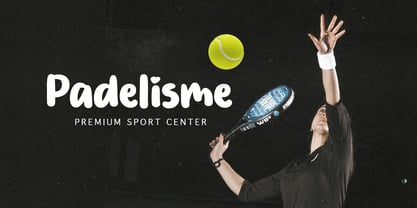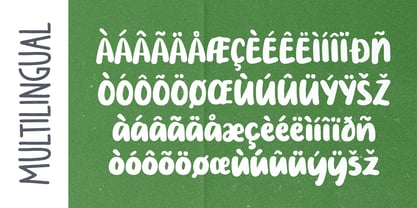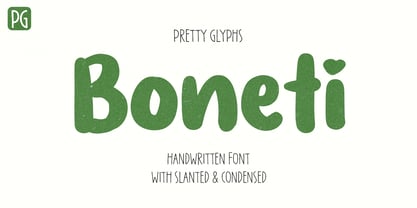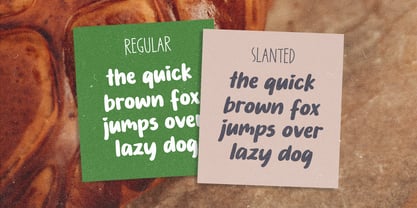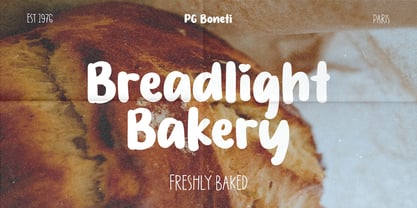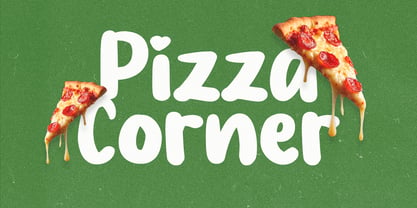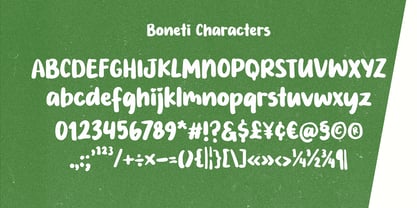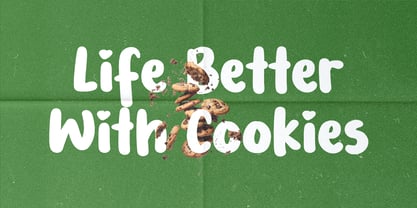
PG Boneti
by Pretty Glyphs
The PG Boneti Font Family was designed by Ulfa Tiara Putri and published by Pretty Glyphs. PG Boneti contains 4 styles and family package options. More about this family
PG Boneti is a bold handwritten font that combines a strong personality with a natural flow. Designed to stand out, it offers four versatile styles: Regular, Condensed, Slanted, and Slanted Condensed, providing full flexibility for any creative need. Ideal for branding, logos, packaging, posters, and social media, PG Boneti delivers a confident and expressive look while ensuring readability. Its thick strokes and dynamic movement make every word feel powerful, modern, and effortlessly stylish.